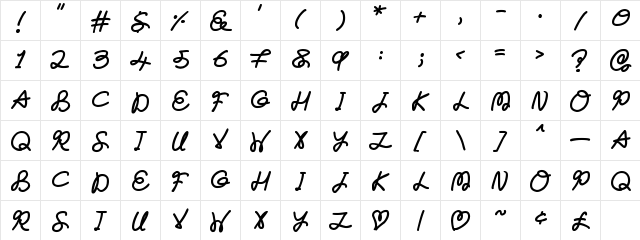
Forever Regular
Design Context for Forever Typeface
Forever is a composed and adaptable typeface that performs quietly and consistently across a wide range of design contexts.